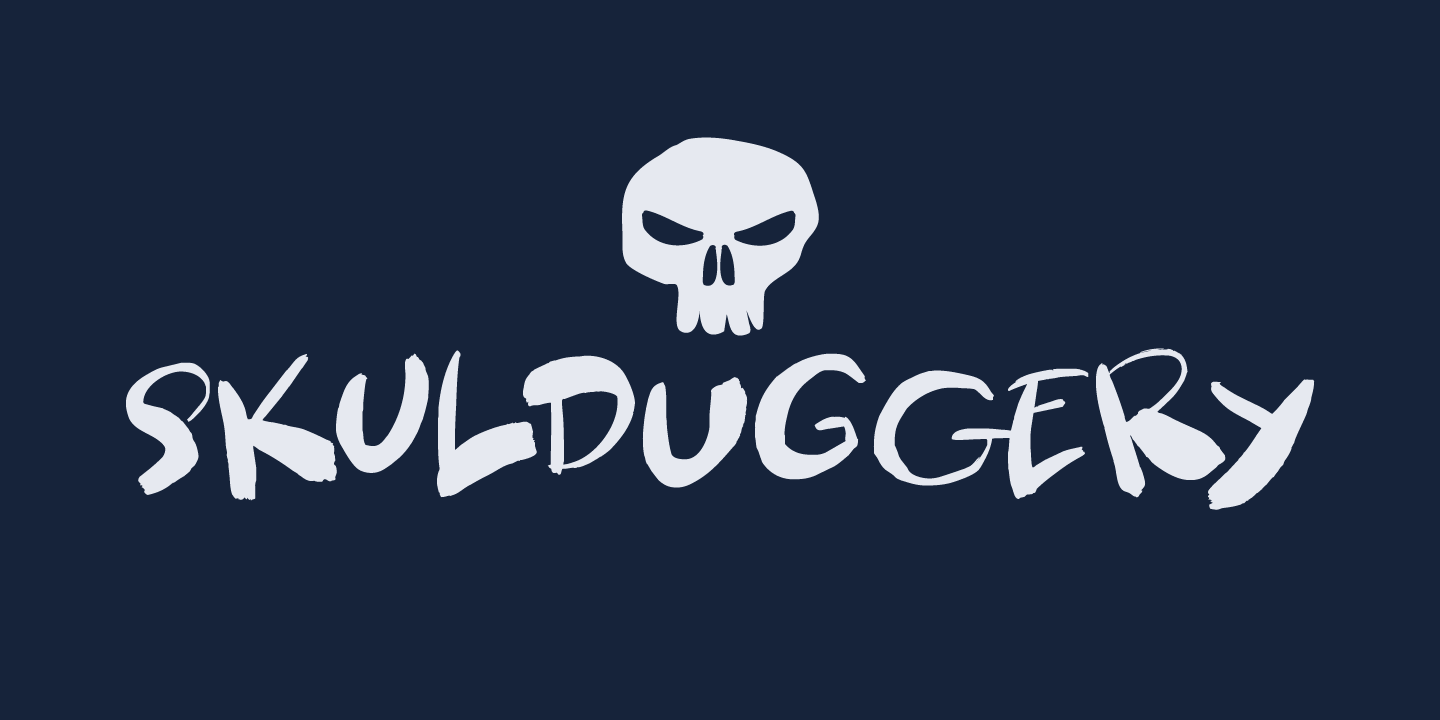
Designed by David Kerkhoff, Skulduggery is a brush display font family. This typeface has two styles and was published by Hanoded.
I was playing around with some brushes and ink, and out came Skulduggery.
Use it for any project you can apply the term ‘skulduggery’ to.
Or not.
Whatever.